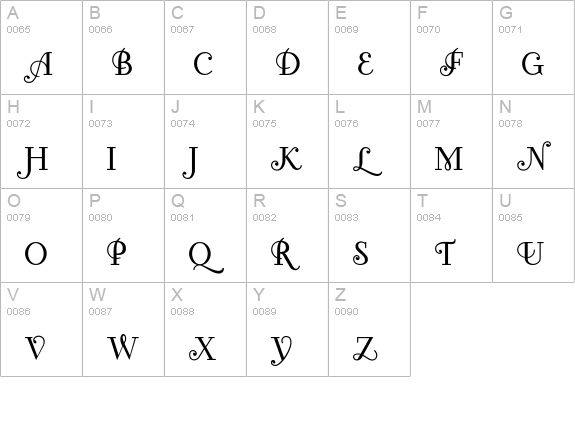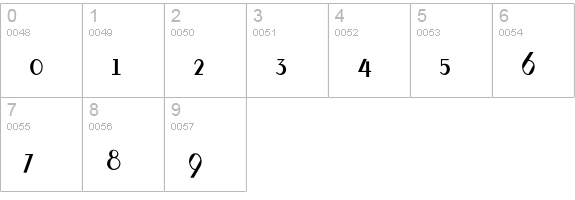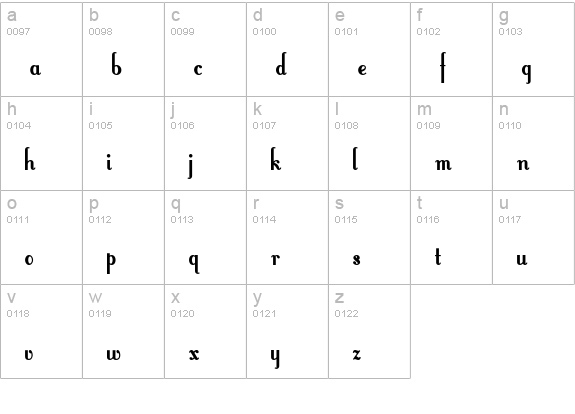
FontleroyBrown Font Details
Introducing FontleroyBrown, a stunning and elegant font that exudes an air of sophistication and charm. With its beautifully crafted letterforms, this typeface is perfect for adding a touch of class to any design project. FontleroyBrown boasts a timeless appeal, combining classic elements with a modern twist. Its graceful curves and delicate details make it a versatile choice for a wide range of applications, from branding and logo design to editorial layouts and wedding invitations. One of the most remarkable aspects of FontleroyBrown is that it is freely available to download at FontsMarket.com. Yes, you read that right – this exceptional font can be yours without spending a dime. Whether you're a professional designer or a hobbyist enthusiast, this generous offering allows you to elevate your creations without breaking the bank. This font offers a variety of weights and styles, giving you the flexibility to experiment and find the perfect fit for your project. Its clean and legible design ensures readability across different mediums, making it suitable for both print and digital applications. FontleroyBrown is more than just a font – it is a statement of style and sophistication. Its timeless elegance and generous free availability make it a must-have for any designer's toolkit. Don't miss the opportunity to add this remarkable font to your collection and elevate your designs to a whole new level of excellence. Download FontleroyBrown today at FontsMarket.com and embark on a creative journey that is sure to leave a lasting impression.